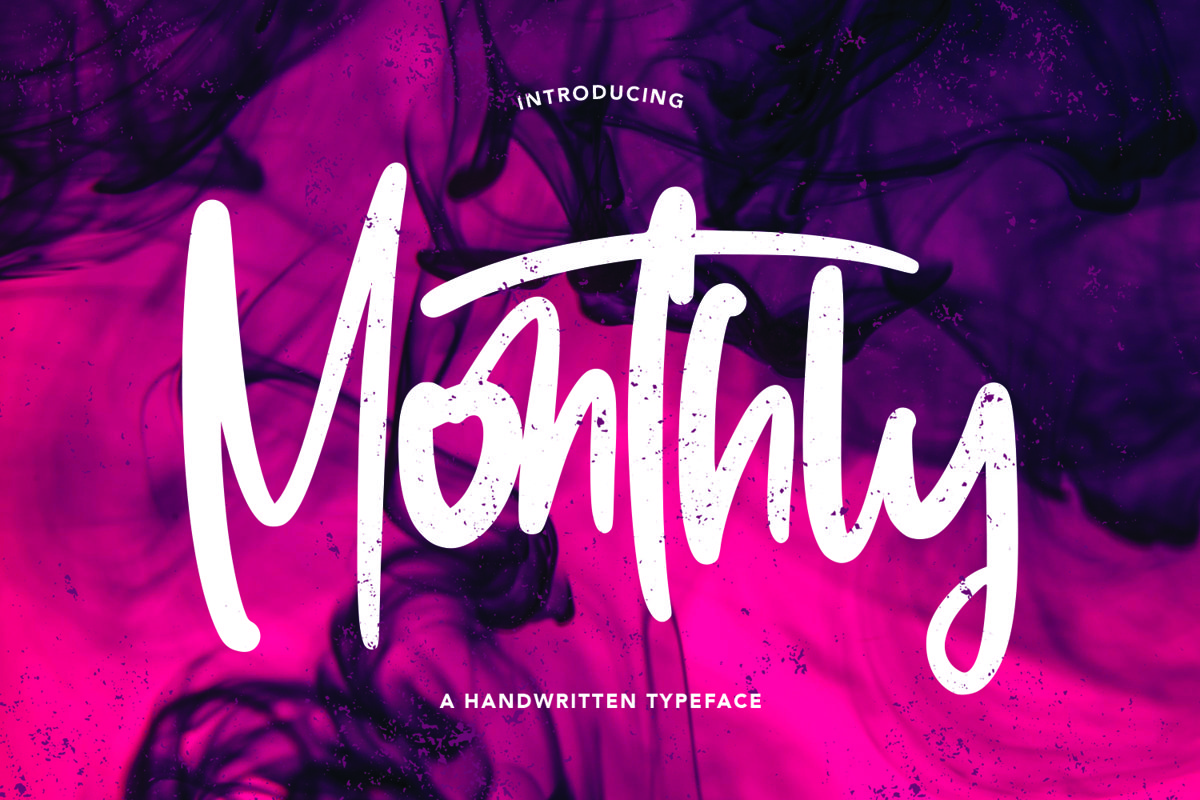
Monthly - Handwritten Typeface Font that contain lowercase, uppercase, symbol, and also support multi language. There’s a lot ligatures in this font. This Font also comes with ligatures, alternates and many more. this font suitable for fashion, branding, catalog and other design what you want.